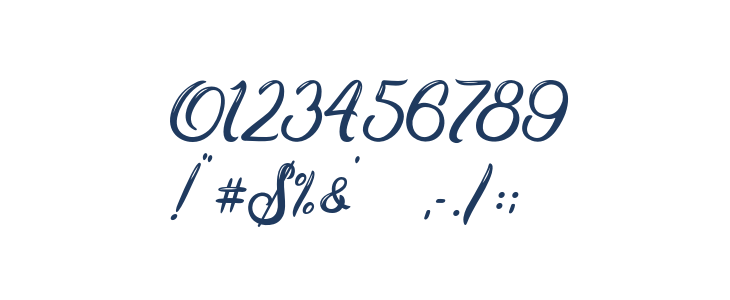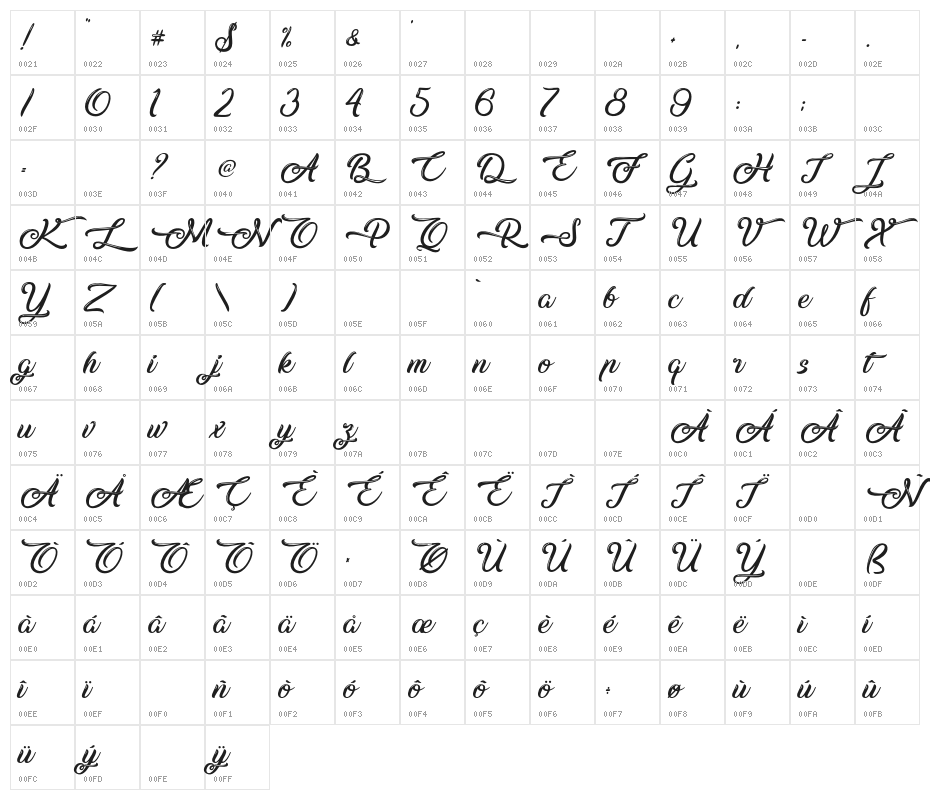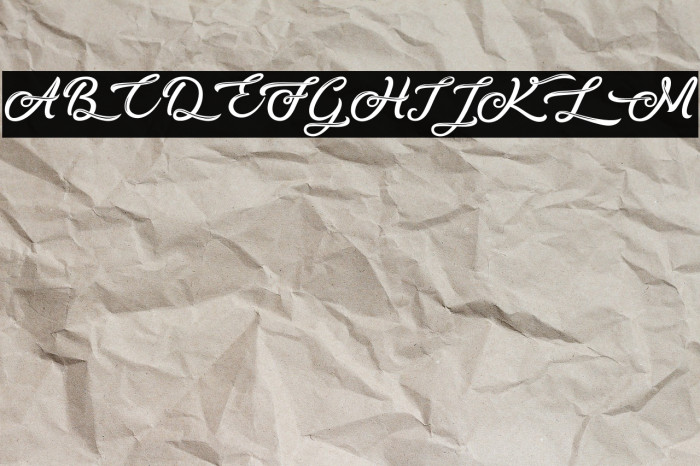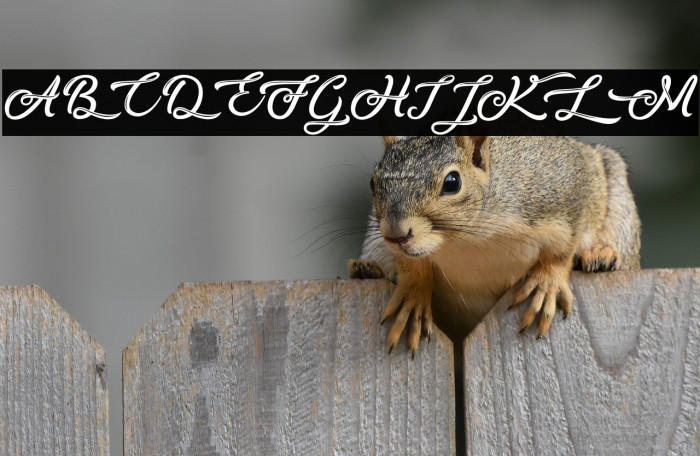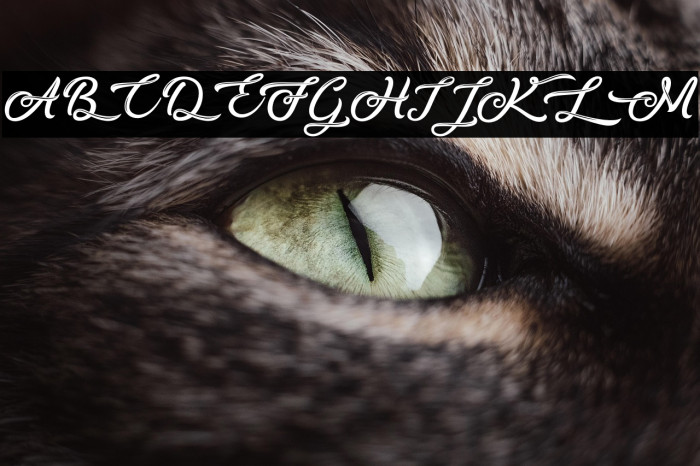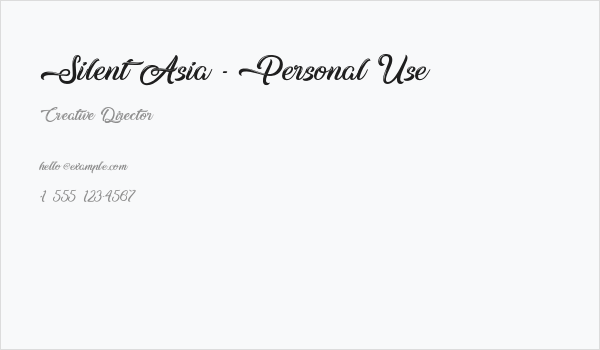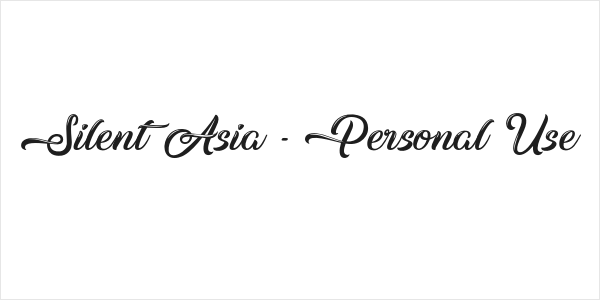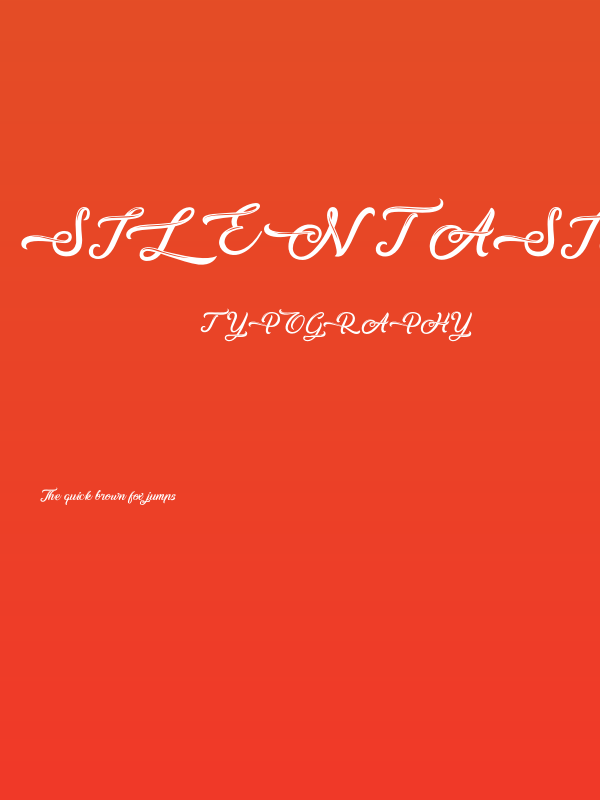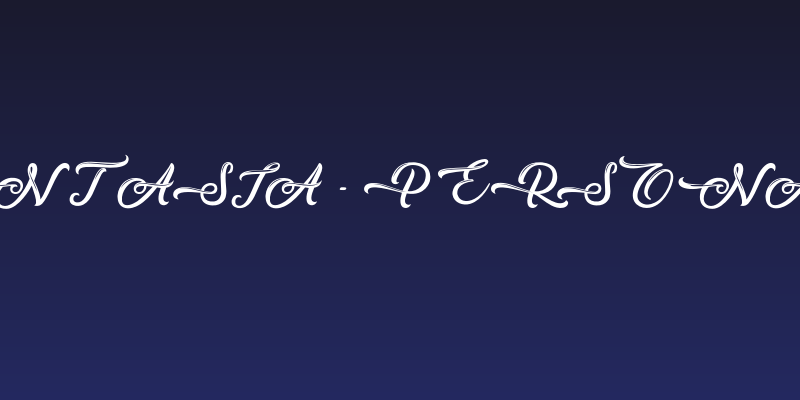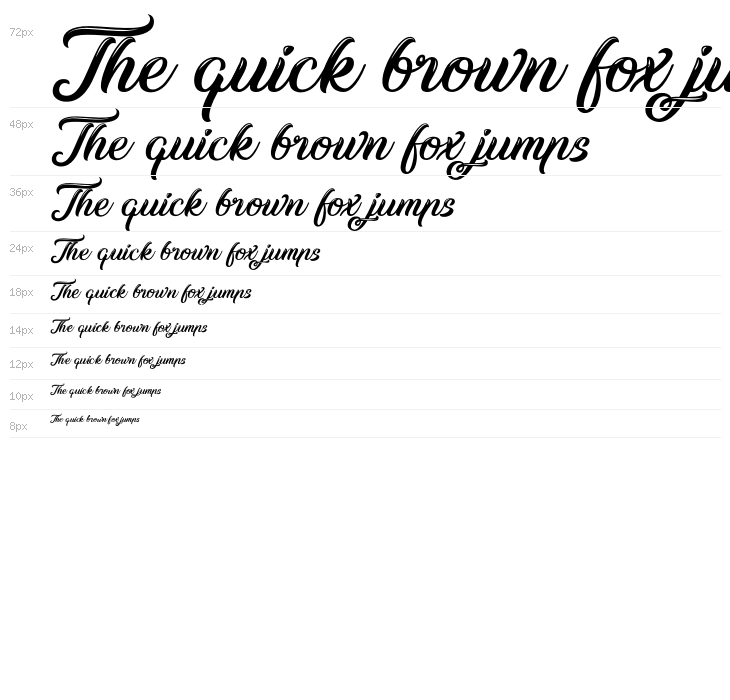
Silent Asia - Personal Use Font
Silent Asia - Personal Use Description
This font features a flowing, cursive style with elegant loops and flourishes. The uppercase letters are ornate, with intricate details that give a sense of sophistication and grace. The lowercase letters maintain a consistent flow, connecting smoothly to create a harmonious appearance. Numbers and special characters are designed with the same attention to detail, ensuring a cohesive look across all elements. The font's overall aesthetic is both classic and decorative, making it suitable for projects that require a touch of elegance and style.